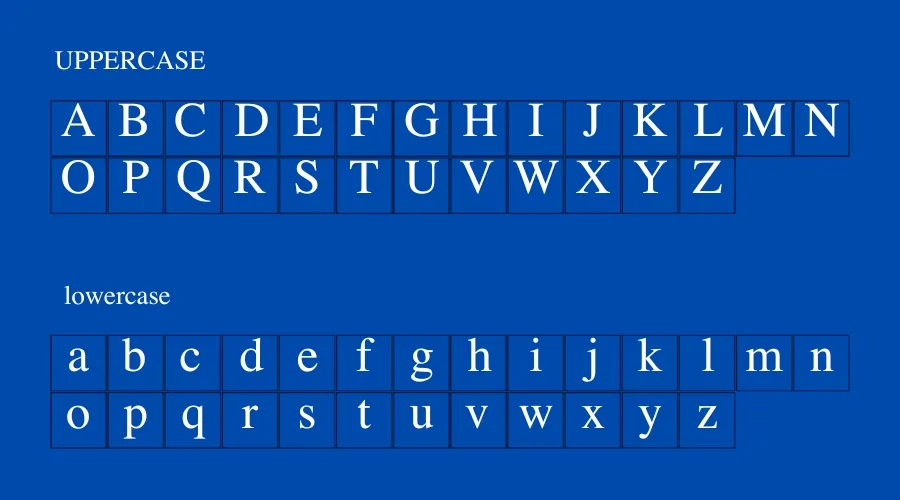
Times Roman Font
About Times Roman Font
Stanley Morison and Victor Lardent designed Times Roman Font. This typeface belongs to the serif font category. There are over a hundred stylized alternatives, allowing for unlimited customization and titling possibilities. A classic and stable design, it is well suited to editorial, books, ads, and branding.
There are several ways in which you can utilize its advanced features for official purposes. If you want to pair this typeface with something very similar, you can go with rubik font. With it, you will get the best results for both your clients' projects and your own.